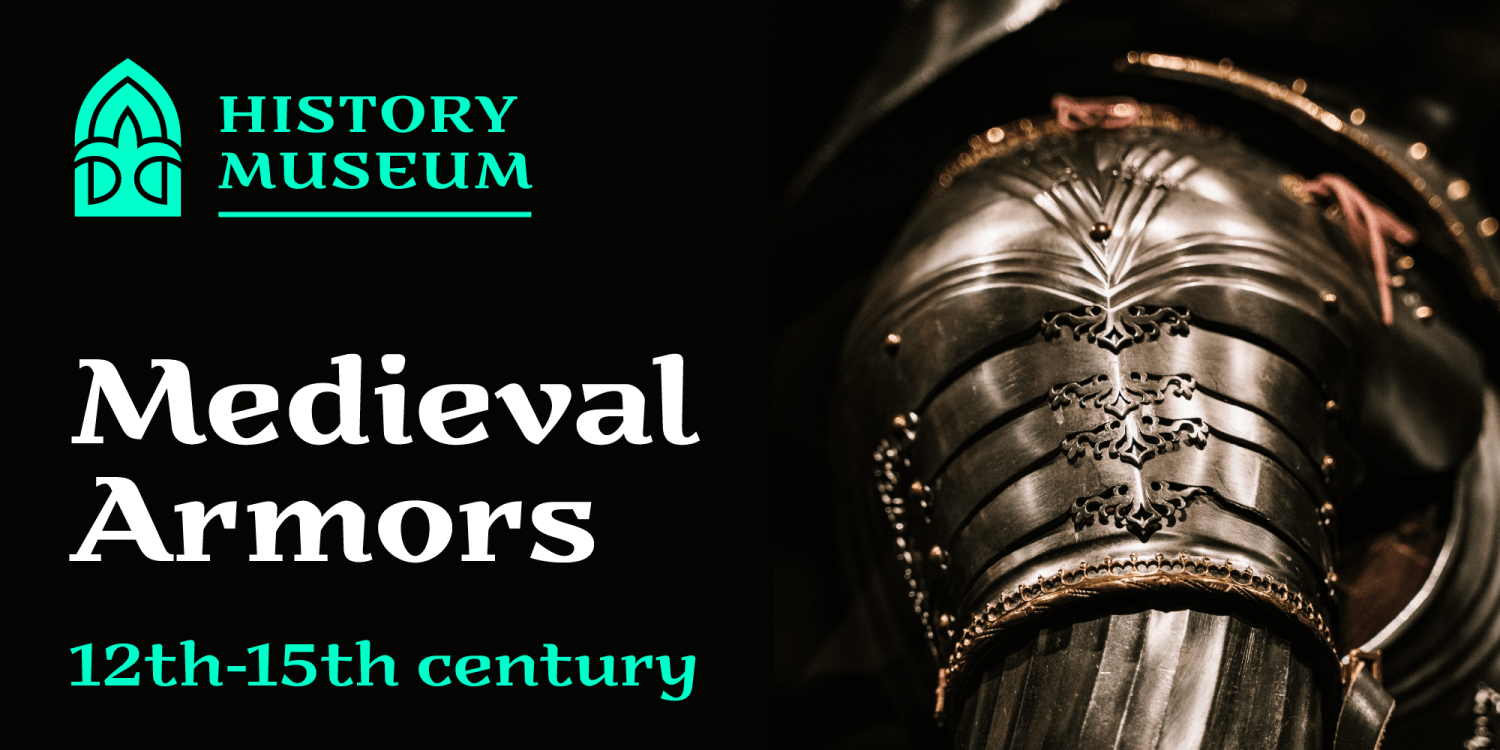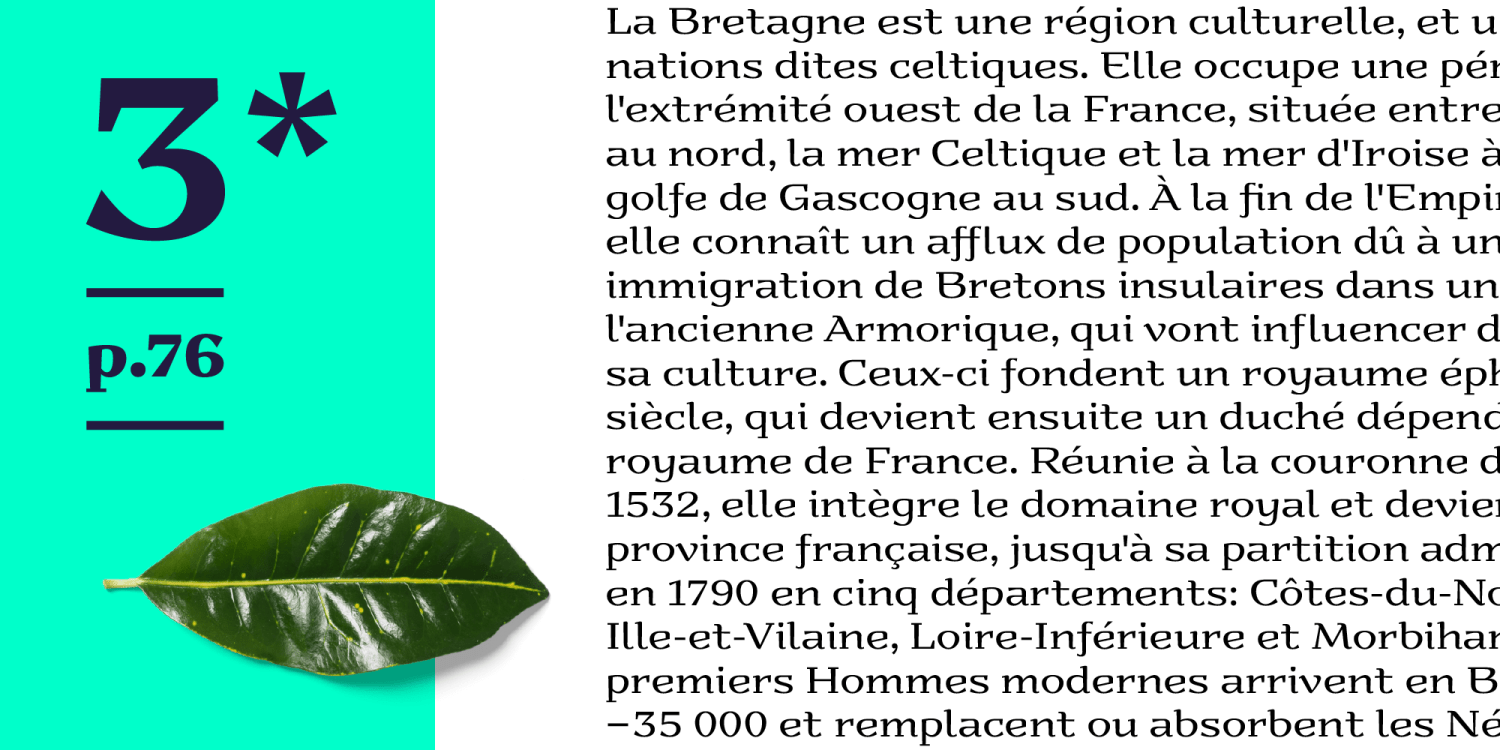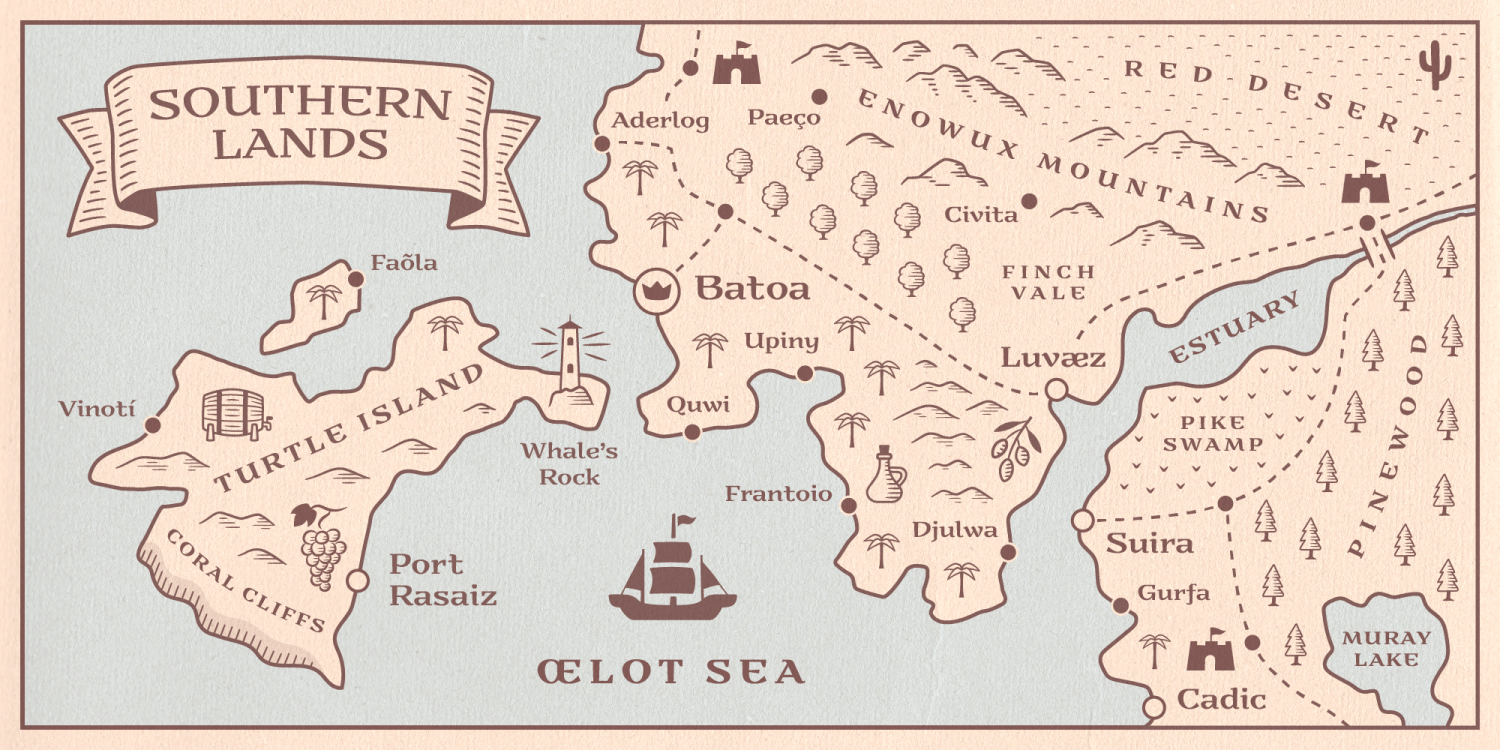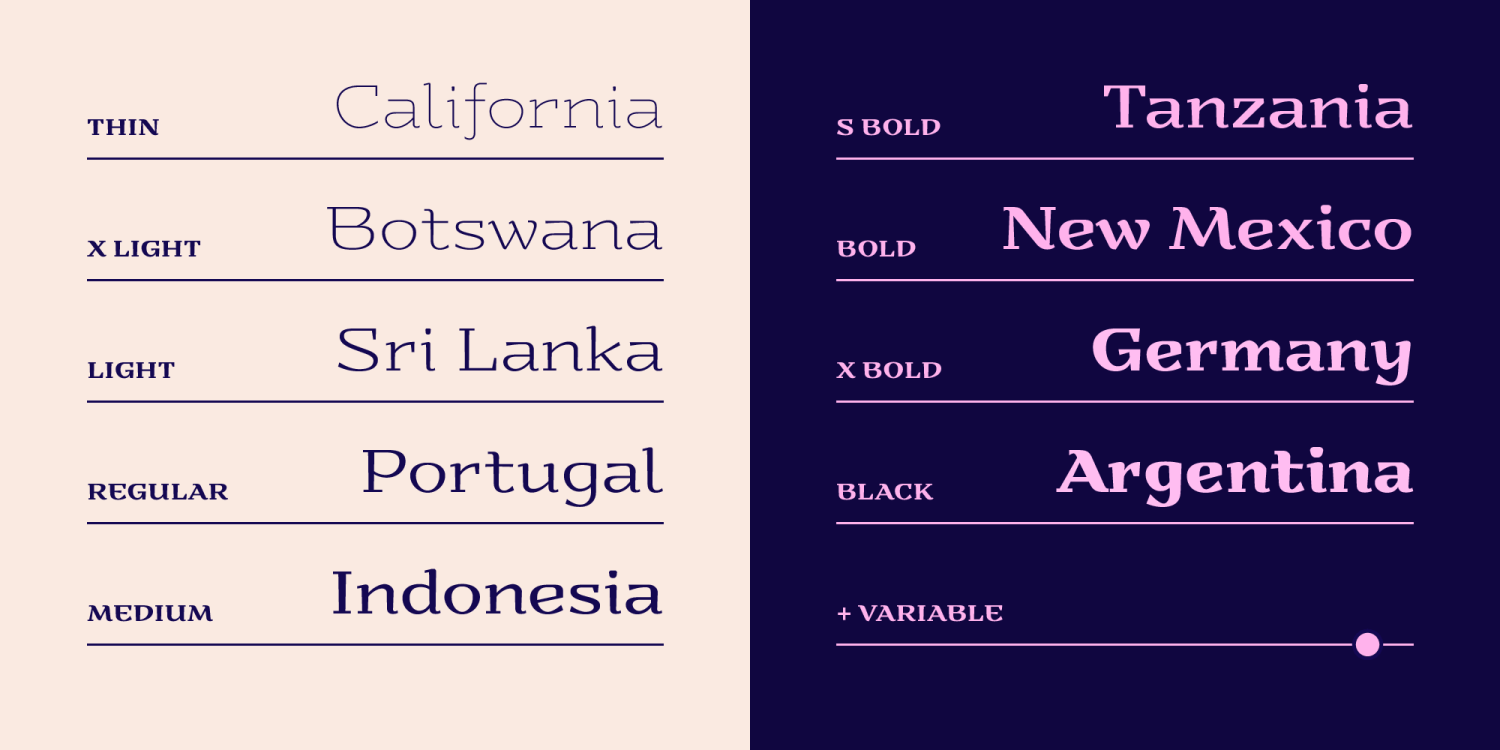
RAZUMEC is a carefully crafted display serif typeface with a highly unique personality. Its epic yet warm sentiment is established by a skillful blend of slab and wedge serifs, tapered stems, curves with raised center, and creative weight distribution.…